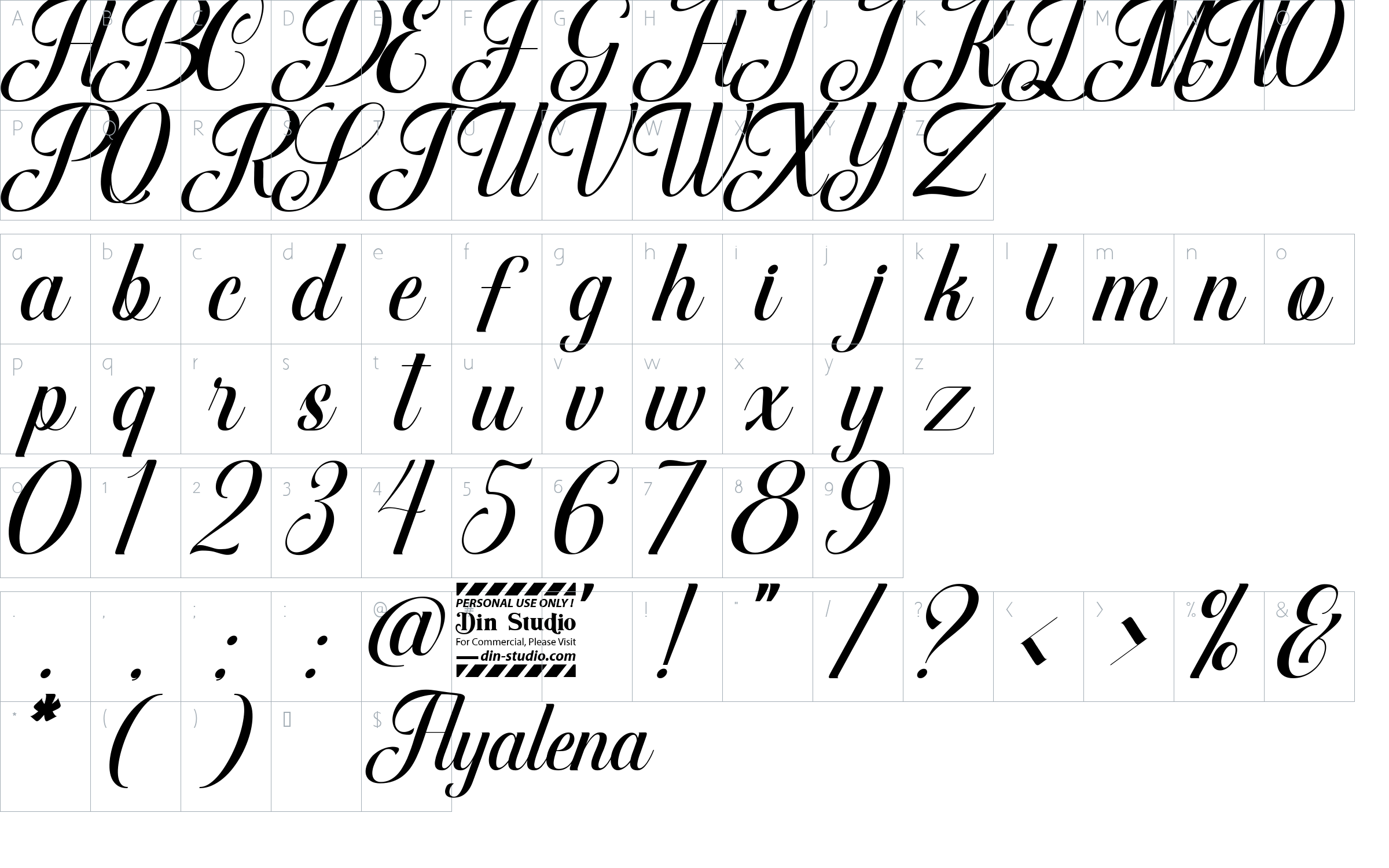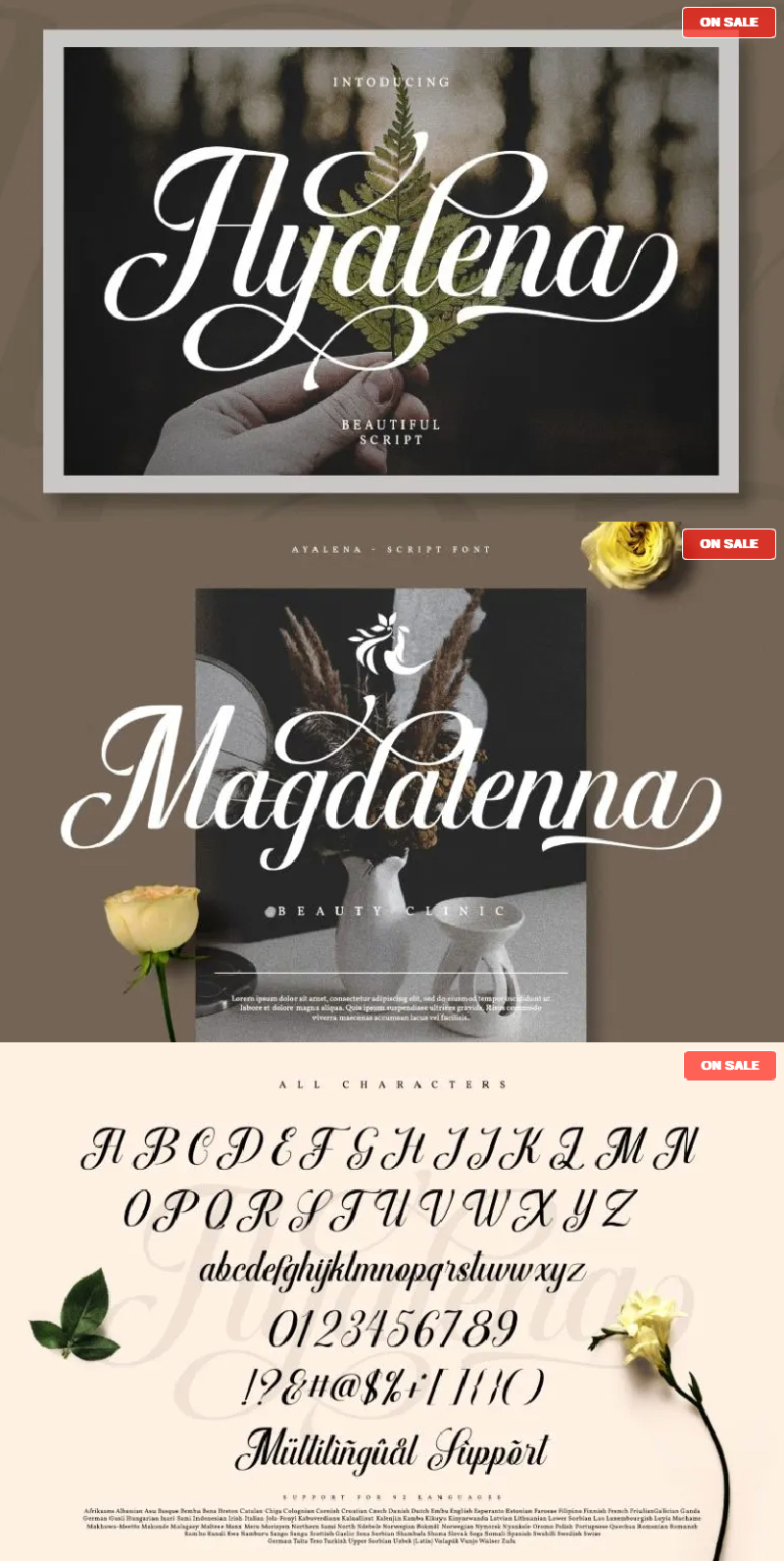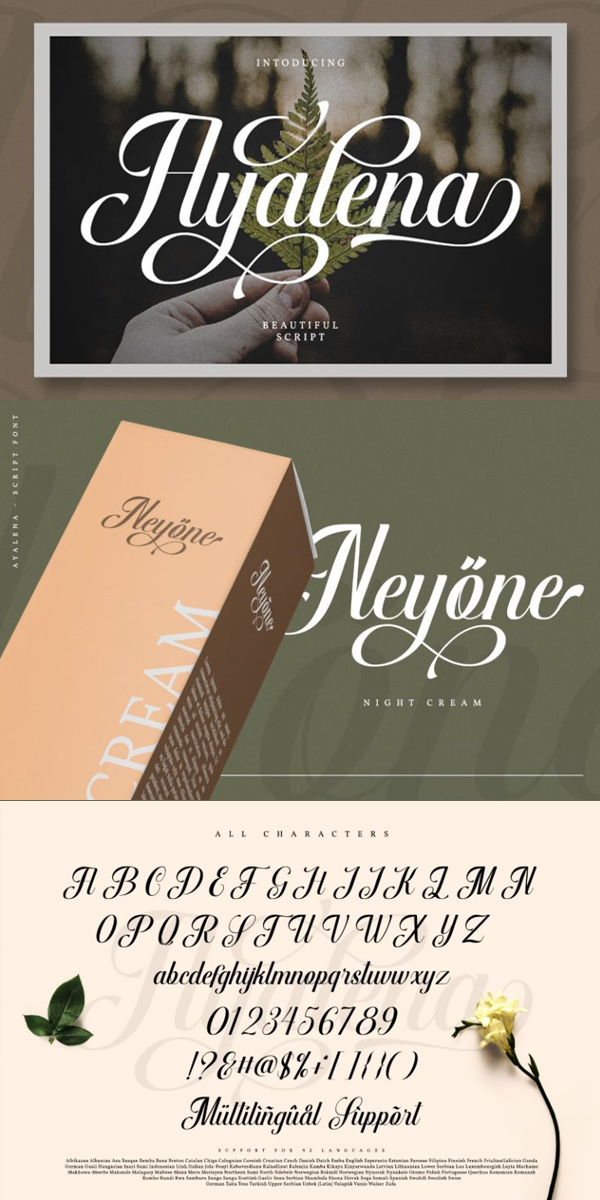
Ayalena Font
About Ayalena
Thanks for checking out Ayalena! It is a modern calligraphy font which brings a beautiful and attractive typeface made for any professional project brandings. It is best used for logos, brandings, weddings and quotes. See the previews above to get some inspiration on how you can use them.